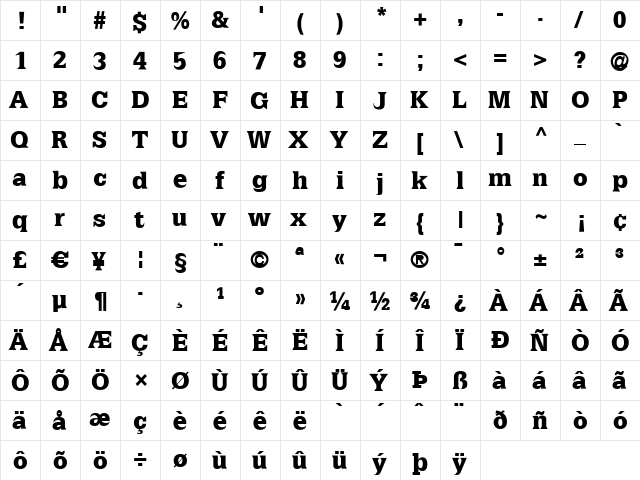
LatiniaBlack Regular
Design Context for LatiniaBlack Typeface
LatiniaBlack offers clean, dependable letterforms without strong stylistic allegiance, making it a practical choice for designers who need flexibility.